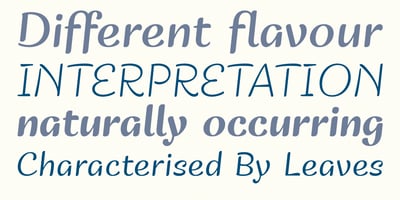
Pinala
Pinala font
Pinala Font Family was designed by Warit Chaiyakul and published by Typomancer. Pinala contains 8 styles and family package options. ‘Pinala’, a playful script & sans fonts, contains light to bold weights for various designs.